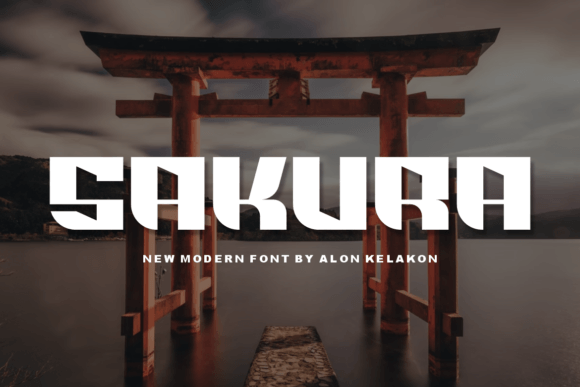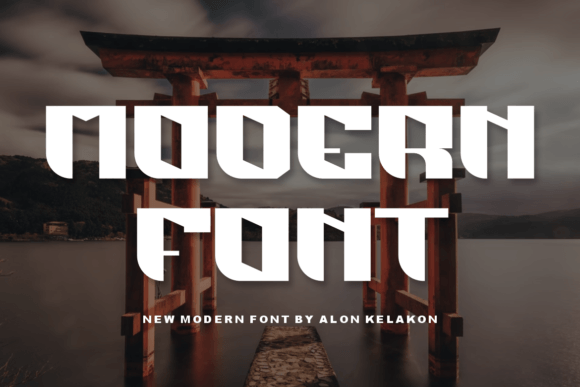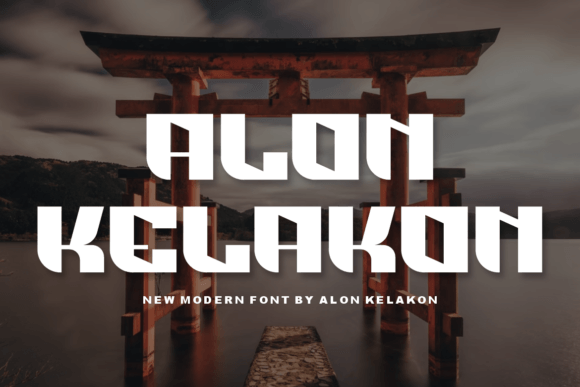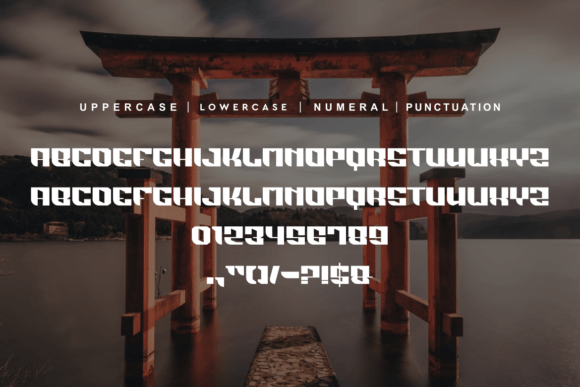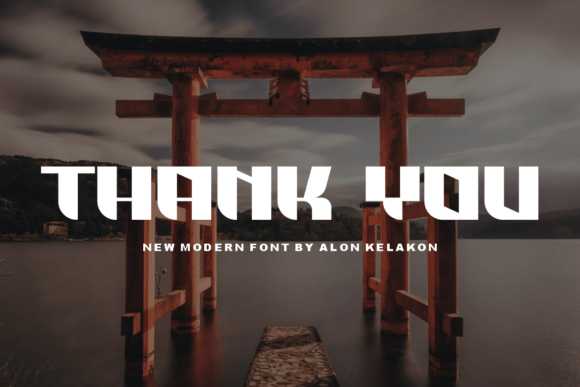
Introduction to Kimsino Font
Kimsino has a strong personality which makes it a perfect choice for display projects.
Perfectly suited for a wide range of applications from branding and logos, to candy and food packages .
Key Features of Kimsino Font